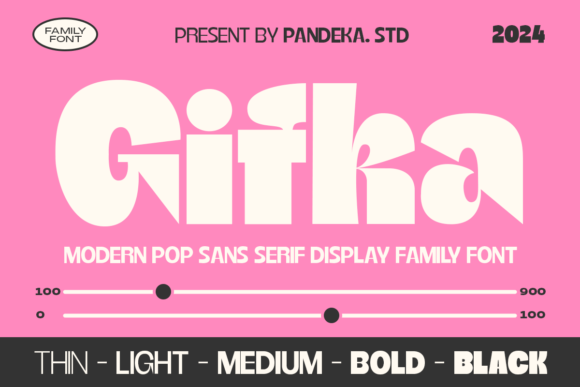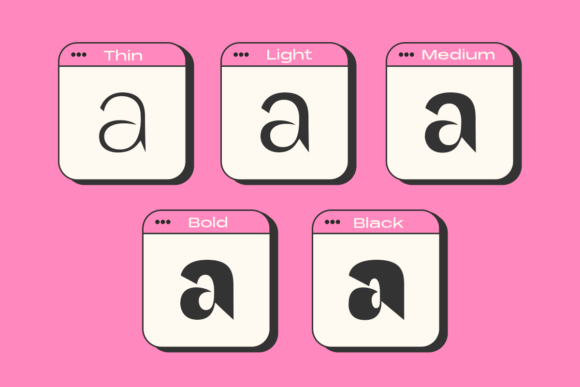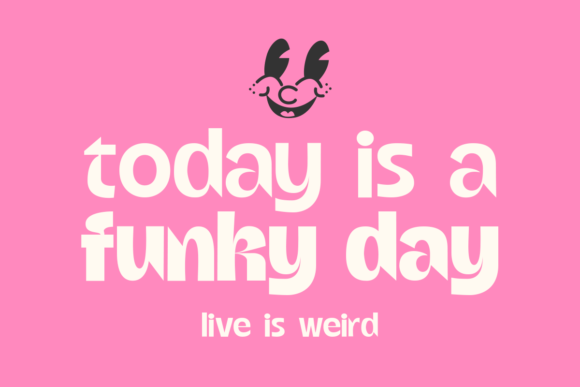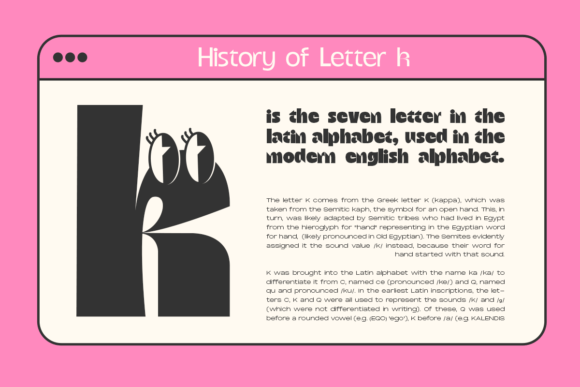
Gifka Font: A Modern & Playful Display Font for Branding & Social Media
About the Gifka Font
Let us introduce you to Gifka Font, where timeless design meets modern craftsmanship. Introducing Gifka – A fun and modern pop font!
Today’s vibrant designs inspire Gifka and bring a fresh, energetic vibe to your projects. With its unique style, Gifka is perfect for adding a special touch to your work.
Gifka comes in 5 font styles (Thin, Light, Medium, Bold, and Extra Bold), Its weight is superior in posters, social media, headlines, magazine titles, clothing, large print formats – and wherever you want to be seen.
Gifka’s playful, energetic personality makes it ideal for headlines, branding projects needing a youthful touch, and eye-catching posters. Its bold strokes also work well in large-scale applications like signage or apparel graphics. However, Gifka’s less-than-optimal x-height makes it unsuitable for extended body text or UI elements requiring high readability.
For a balanced aesthetic, pair Gifka with a clean sans-serif like Open Sans for body copy, creating contrast and visual harmony. Alternatively, a classic serif such as Garamond adds a touch of sophistication, tempering Gifka’s boldness. Consider a simple geometric sans-serif for a modern, consistent look.
Gifka’s overall style is best described as modern and energetic. Brands targeting younger demographics, promoting vibrant products, or emphasizing fun and creativity will find Gifka a strong visual asset.